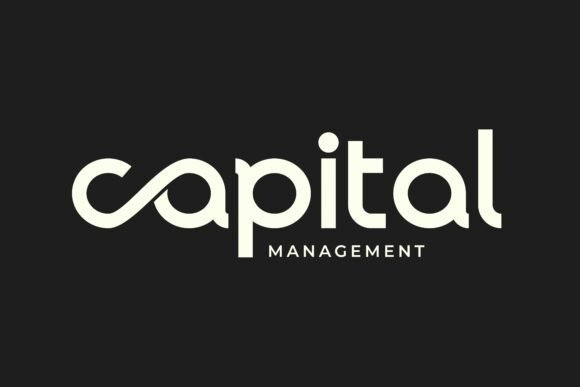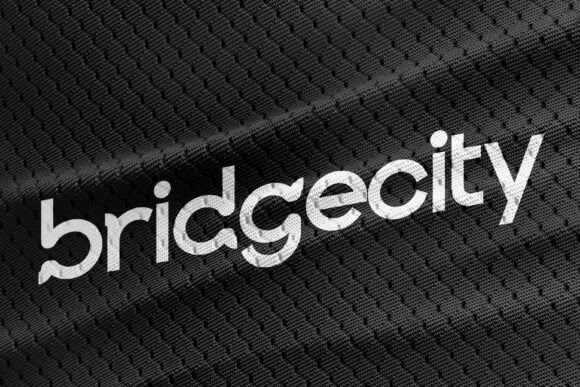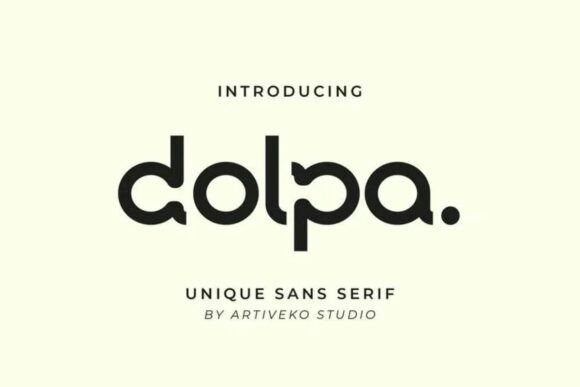
Dolpa Sans Font
Dolpa Sans Font is a modern elegant sans serif font designed to bring sophistication and clarity into every project. With its clean structure, smooth curves, and refined proportions, Dolpa offers a timeless look that fits both contemporary and classic branding.